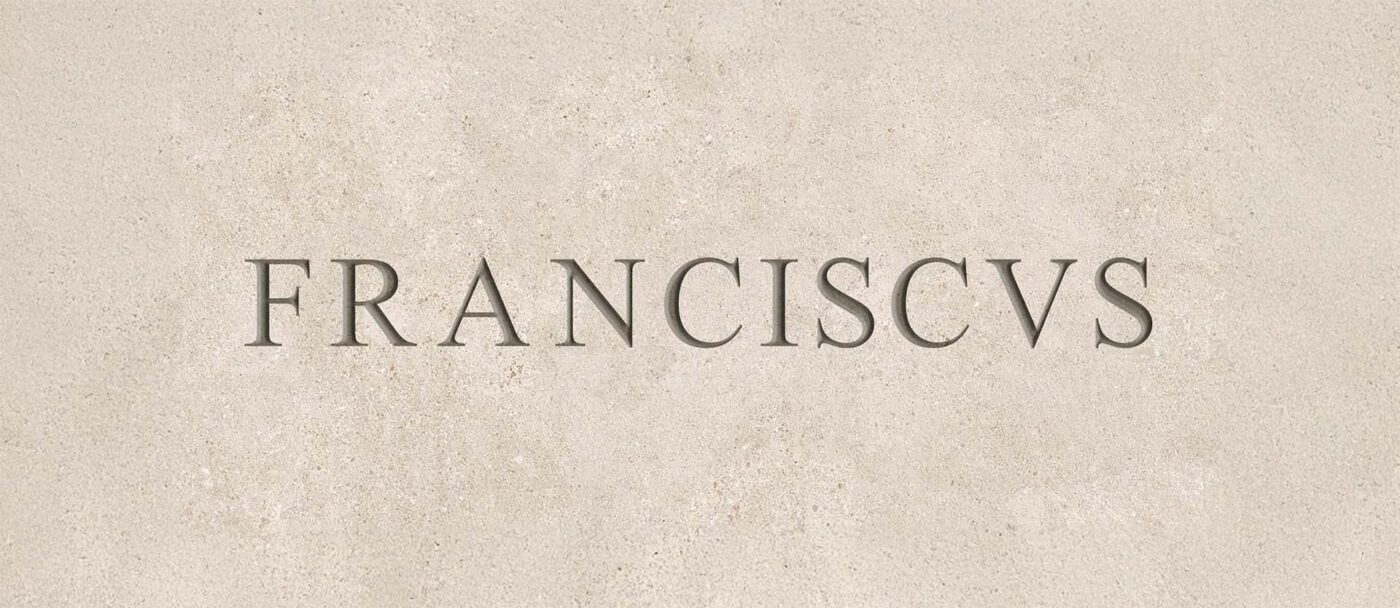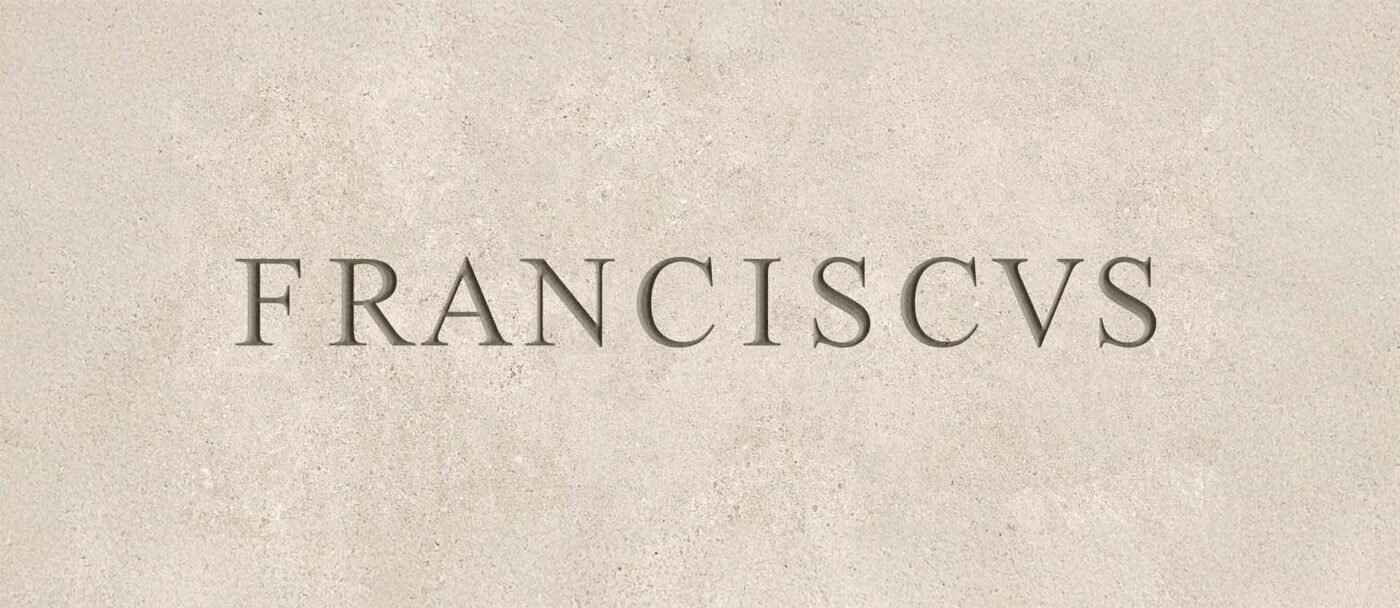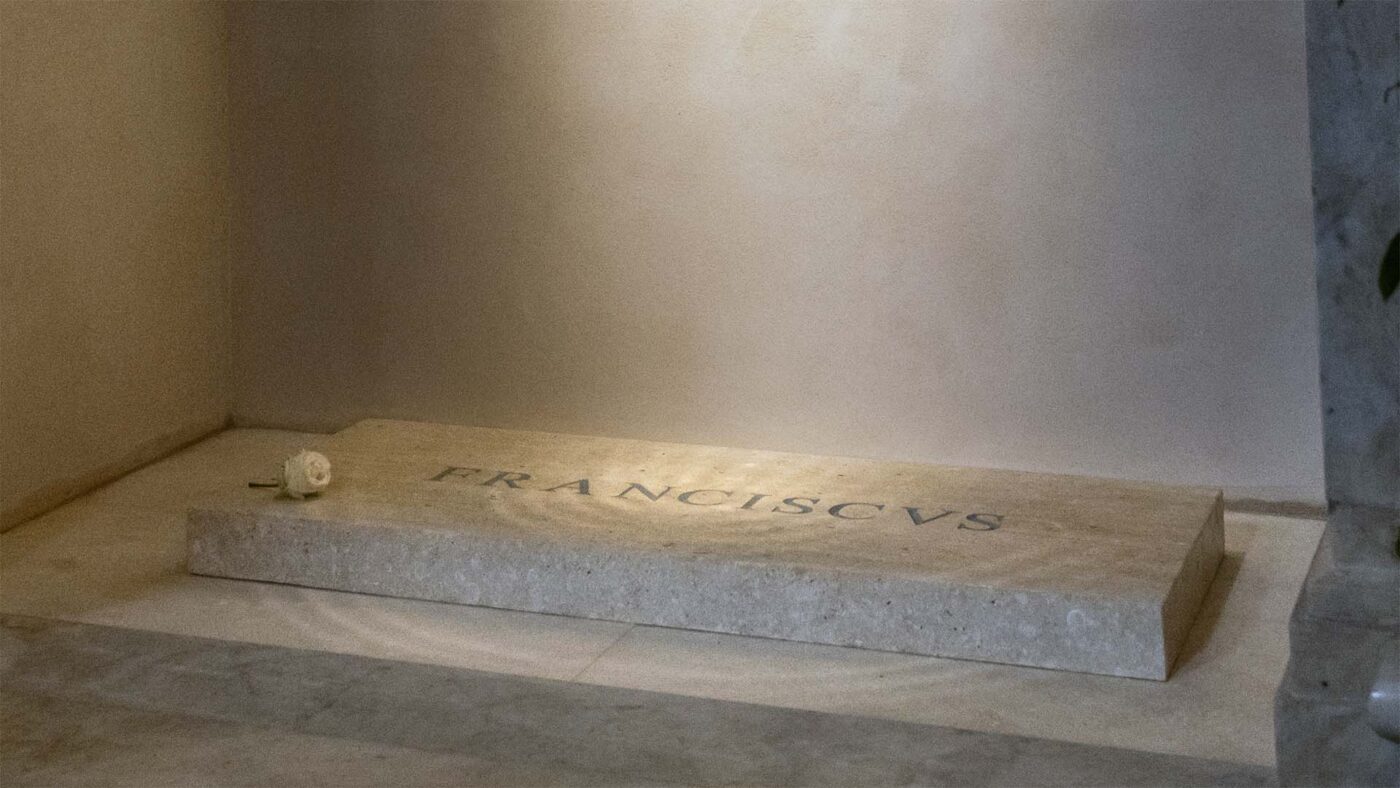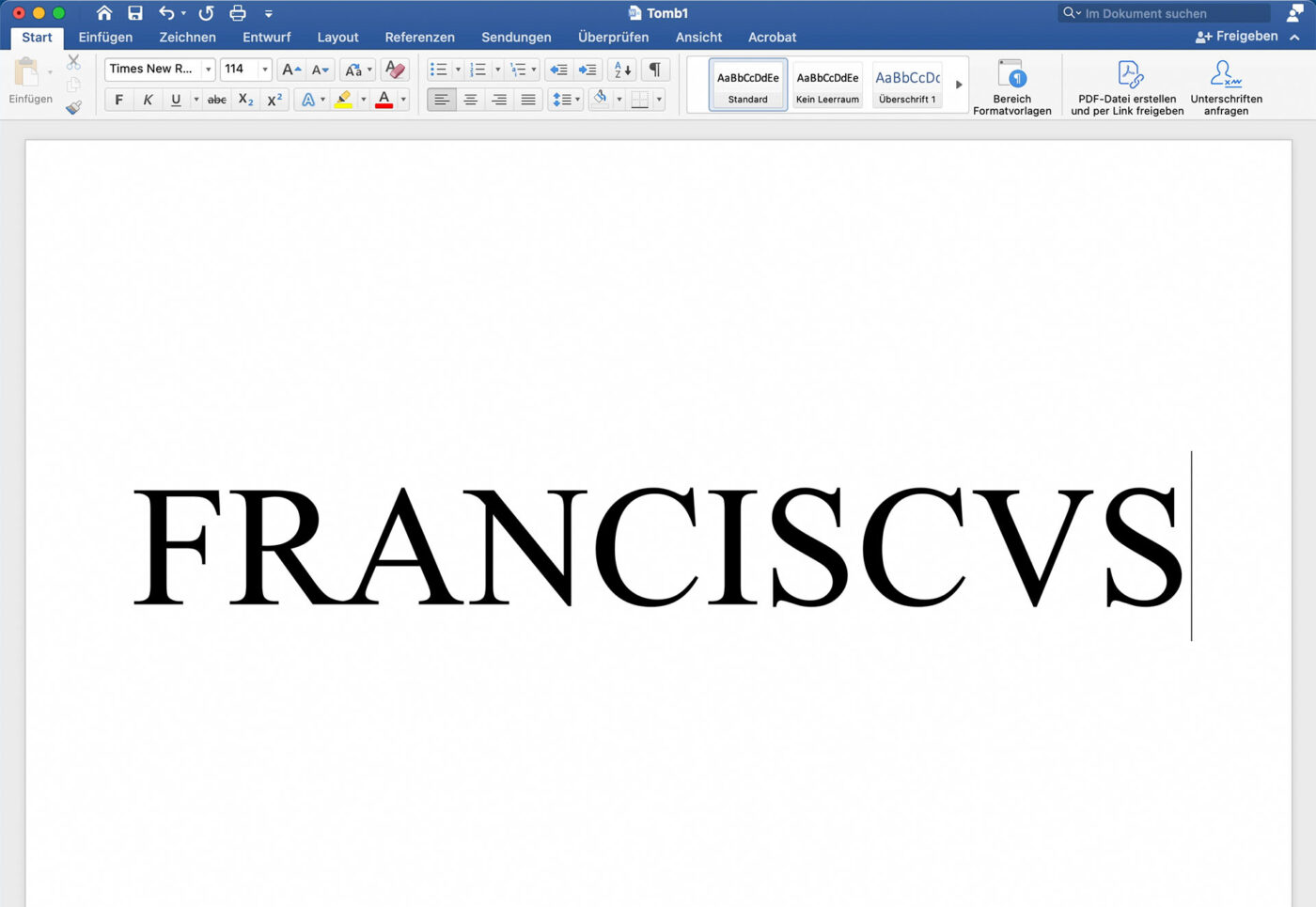
Pope Francis’ Tomb: A Type Tragedy
Pope Francis is dead and it’s almost killing me! Not because he’s gone … but because of the typography on his tombstone. In this article (and the emotional video that goes along with it), we’ll look at what went wrong, how it should have been spaced, and what this unholy design disaster can teach us about typography in web and app design.
FR–A–NCISCVS? Seriously?
Just look at that letterspacing: FR–A–NCISCVS. That’s not a name, that’s a cry for help! It’s so bad, it actually made headlines in mainstream media. And when even the New York Times starts reporting on kerning – that’s not just poor design. That’s when typography stops being a nerdy detail and starts mattering to everyone.
Simple stone tomb engraved with "FRANCISCVS" and a white rose placed on top, located in a quiet, minimalist chapel space.
Pope Francis’ Tomb – the stark minimalism only amplifies clumsy typography (Image: Catholic Church England and Wales)
And it makes me feel sorry about the people visiting the pope’s last resting place at Santa Maria Maggiore in Rome. Lining up for hours, expecting solemn glory, divine elegance … and instead, they get a “Times New Roman on a tombstone” situation. And this is no joke! It’s literally carved in Times New Roman!
Brutal 👹 In my recreation of the tomb stone the unbalanced spacing becomes even more obvious. And yes, that’s Times New Roman.
But maybe that’s the whole point, since Pope Francis was a very humble man. And what could be more humble than using Microsoft Word’s long-time default font? But even if the mason really just opened MS Word and gone for it, it would have looked better.
The word “FRANCISCVS” typed in large Times New Roman font in a Microsoft Word document named "Tomb1".
Even a rushed Microsoft Word layout would’ve been an upgrade …
So what’s the real issue?
The issue here is that the type is spaced so poorly – clearly without any typographic understanding. And the real tragedy? Trajan’s Column – the holy grail of Roman type – is just a 20-minute walk away! So it’s not like good examples of sublime typesetting are hard to find in Rome – they’re literally carved into the city itself. Even on the facade of the basilica itself where the pope is buried in.
A short walk from the Pope’s tomb lies Trajan’s Column, a masterclass in Roman lettering. What an irony!
Because the Romans perfected capital letter spacing, and this isn’t some recent breakthrough – they were doing it while Jesus was still alive!
How to do it right
The principle is simple: balance the space inside each letterform with the space between the letters themselves. I’ve written about capital spacing before on a much more profane subject – but here’s a quick recap using this very sacred example.
Start by spotting the biggest visual gaps – like the canyon between the R and A. Then adjust the rest to match, aiming for a rhythm that looks even to the eye. And this isn’t about math – it’s about feel.
What probably happened on the Pontiff’s tomb? Equal spacing between every letter. Classic rookie mistake. When done right, it could’ve looked beautiful. Even in Times New Roman.
Fixed 😇 This is how the Pope’s tomb stone could have looked with proper letter spacing
How this matter for type in UI design
In digital interfaces, content is dynamic, and we obviously can’t tweak every letter pair. That’s why the system itself needs to be solid. Here’s a quick guide how to approach it – using my fictional “This Pope is Dope” app 😉 as an example.
Stylized app mockup with smiling Pope Francis greeting a crowd on top and “FRANCISCVS” in large serif type with placeholder text below.
Our original app design using Times New Roman in all caps
We’re seeing the same flaws here as on the tombstone. The gaps – especially between the letters ‘R’ and ‘A’ – create that same clunky, uneven feel. So let’s explore how to fix this without having to manually adjust every single letter pair.
1. Use a proper font
One that comes with built-in kerning tables. Most fonts do, but if you’re not sure, just type the letters VA next to each other and see if the diagonals are close to each other or if there’s a gap. I’ll use the wonderful, classy serif font Spectral from Production Type.
2. Make sure kerning is actually turned on
Yes, this sounds obvious, but you’d be surprised. Again, use letter pairs like VA to check it.
3. Add a bit of extra letter-spacing
Adding a little extra letter-spacing will loosen things up and make problematic combinations like ‘LA’ less striking. Of course, this won’t be as perfect as manual adjustments, but it works well for most cases. And some fonts, like Spectral, even offer special capital spacing features you can activate.
Yes, these are very nuanced adjustments, but they go a long way. Especially when this has to work for various lengths and names.